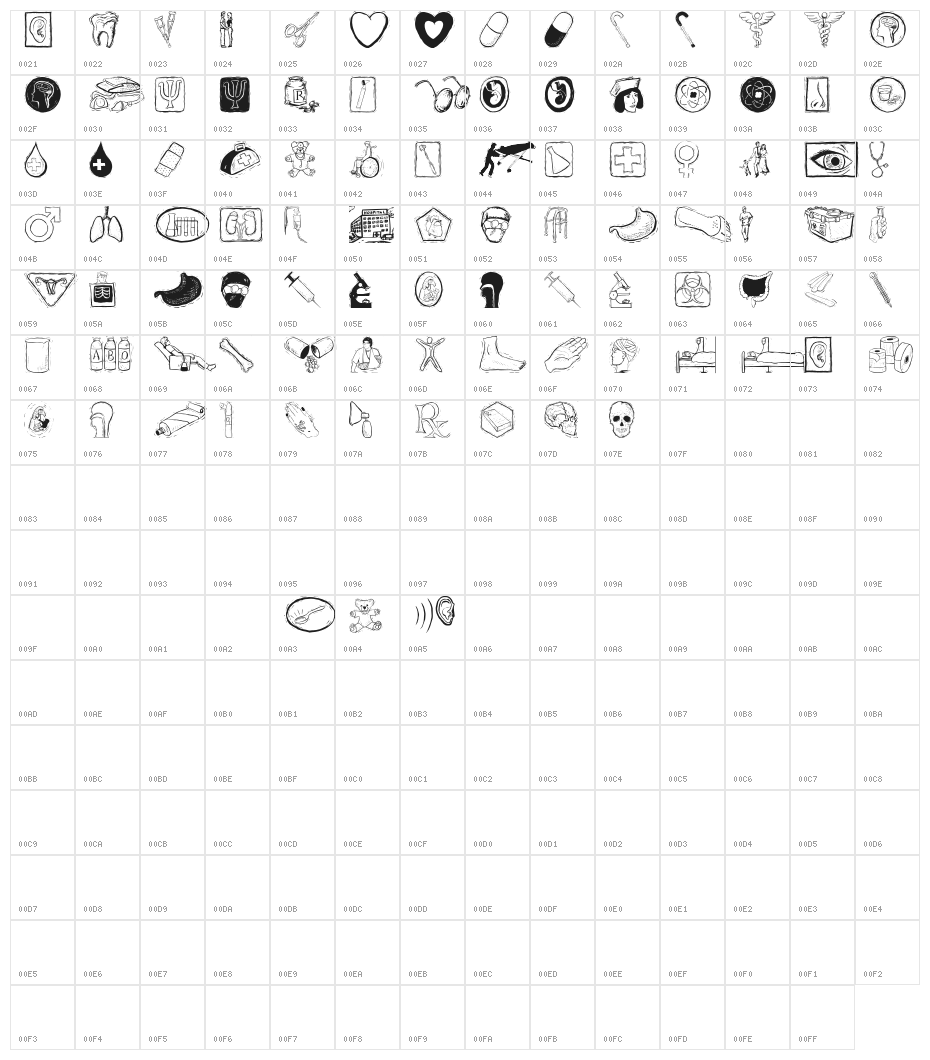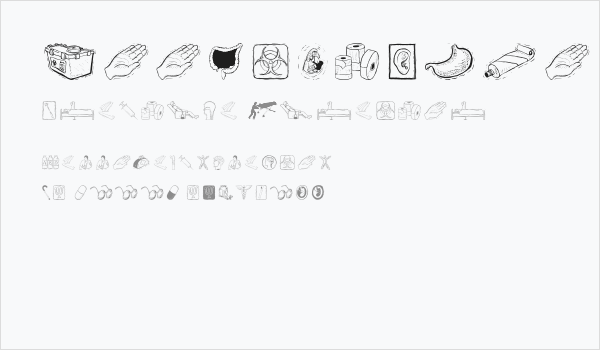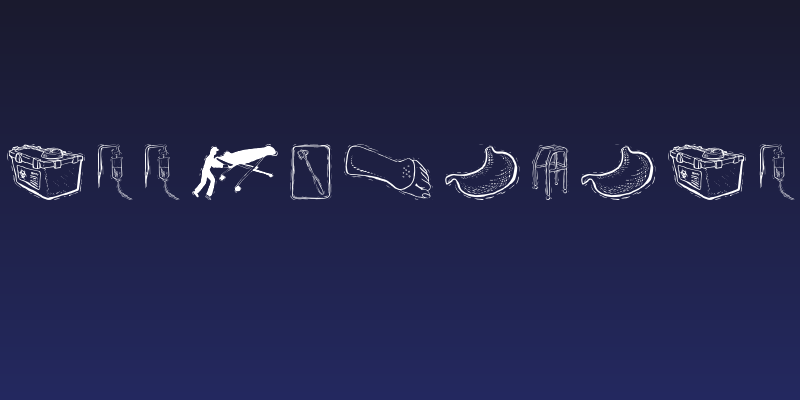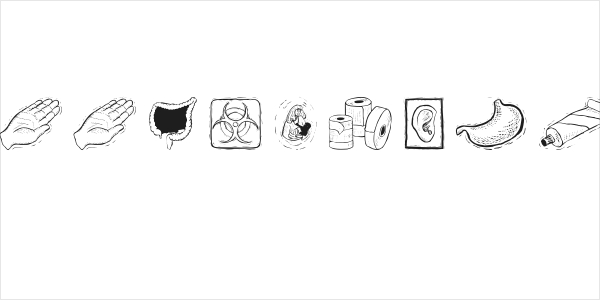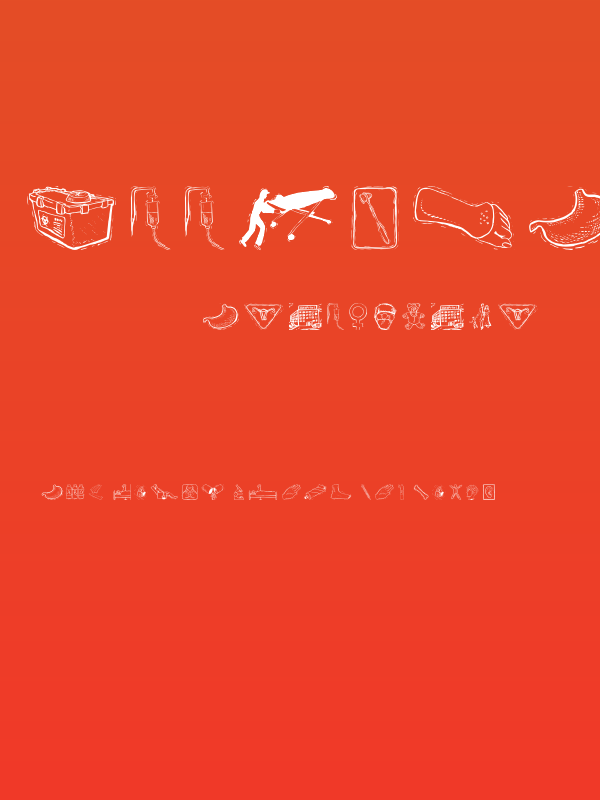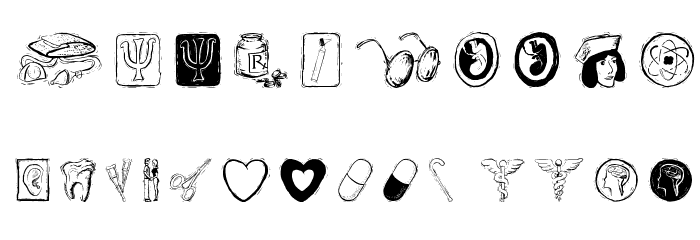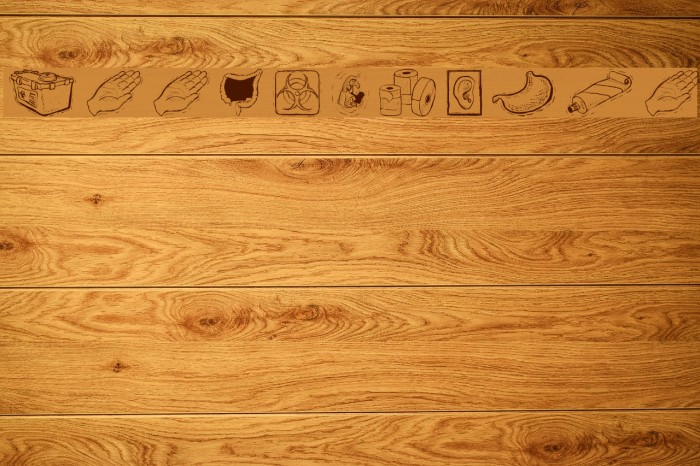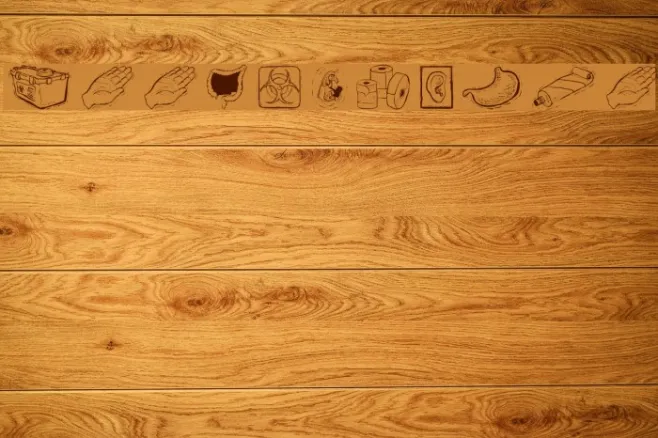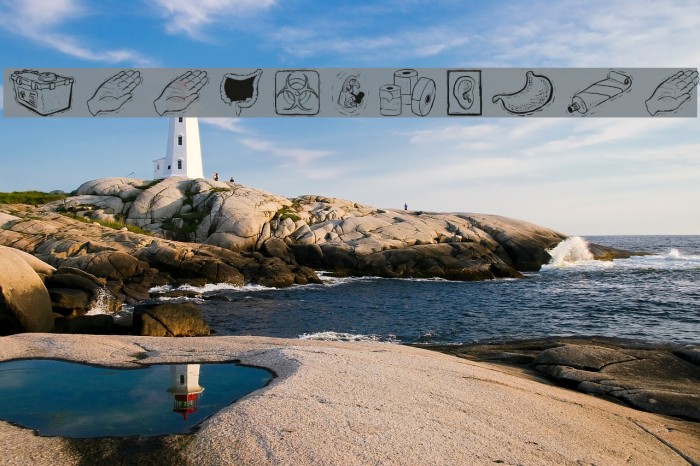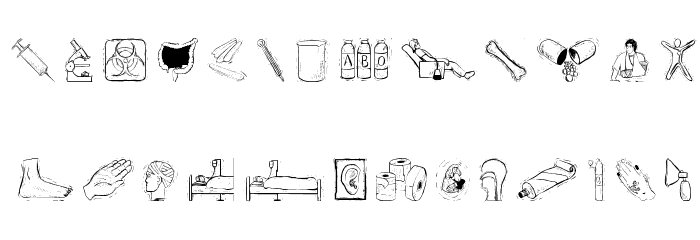
WoodcutsTwo Font
WoodcutsTwo Description
A collection of hand-drawn, woodcut-style medical and healthcare-related pictograms, each glyph representing a unique icon such as anatomical parts, medical tools, and healthcare symbols. The icons have a sketchy, vintage appearance with varying line thickness and organic, irregular outlines.
| Overall Style | Vintage, Decorative |
| Use Case | Icons, Illustrations, Thematic graphics |
| Proposed Projects | Medical posters, educational materials, vintage-themed healthcare branding, infographics, book illustrations. |